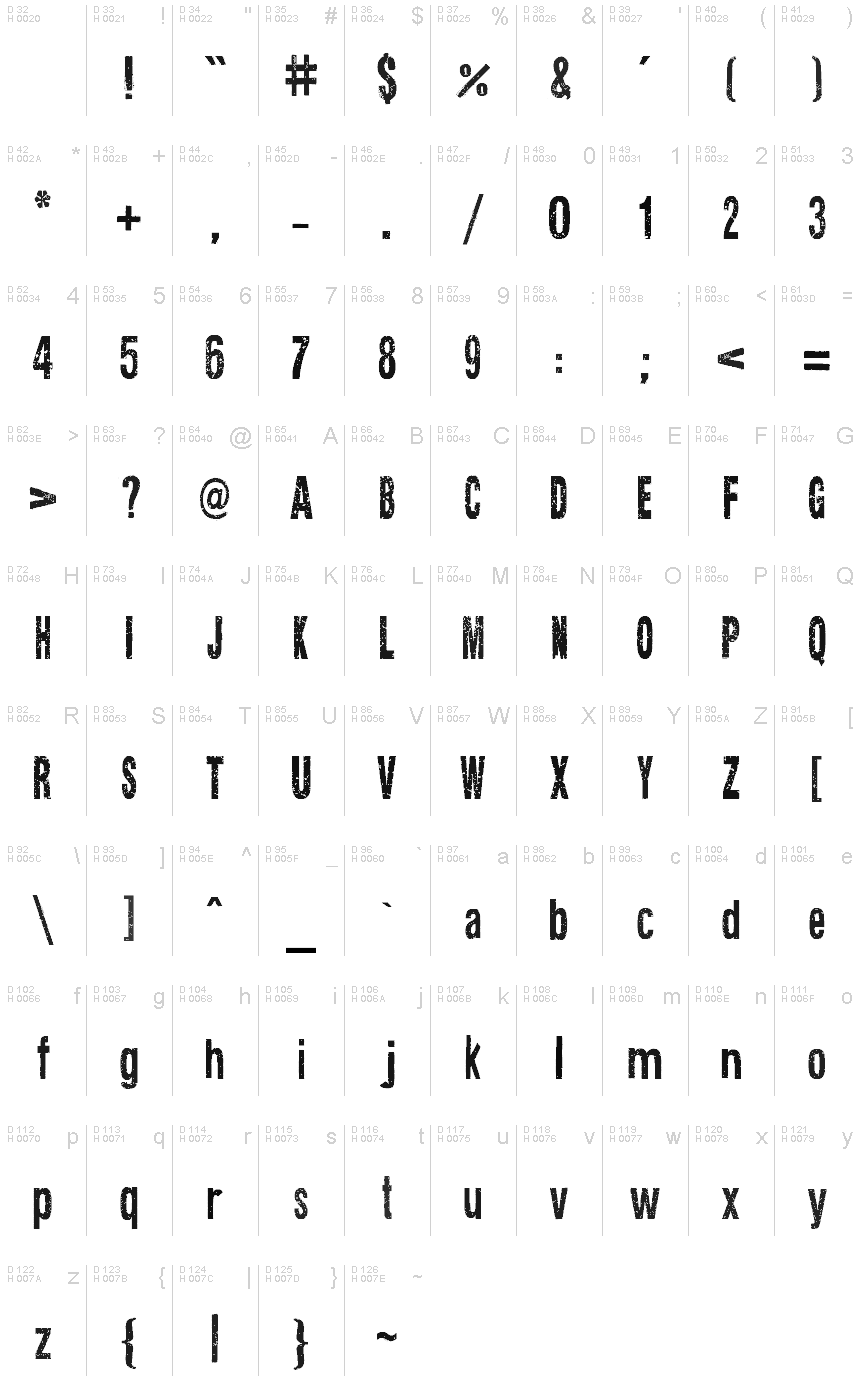
Texture Road
Texture Road by Galdino Otten is a free eroded display font built from tall, tightly drawn sans serif letters. Its dense strokes carry a chipped, scraped texture throughout, with irregular flecks cutting into the main shapes and recalling worn ink or a weathered roadside notice.
Designers working in rock music, skate culture, or gritty urban campaigns can use that rough surface to make posters and merchandise feel printed, handled, and aged. The same battered construction also suits garage branding and action-game graphics, where the letters can function like part of a distressed sign rather than clean digital type.